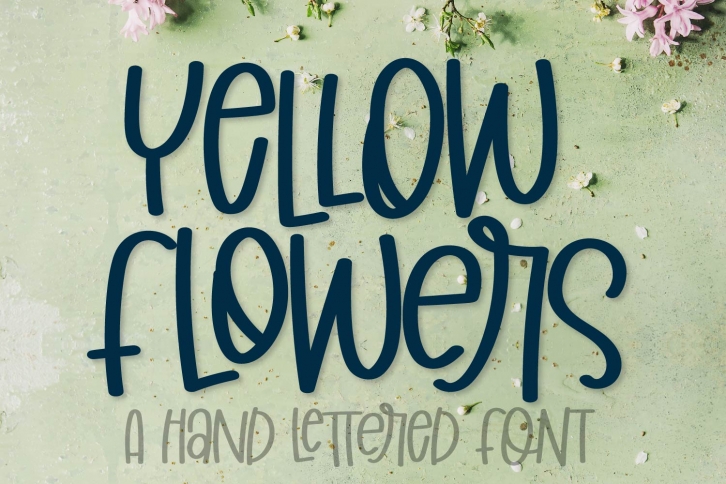
Yellow Flowers is a trendy and unique font with an authentic style. It was designed by Justina Tracy and it's a great choice for creative people who need such a font. It was released on March 14, 2020 and the file size is 8.39 MB. Yellow Flowers will add an organic vibe to any design idea!